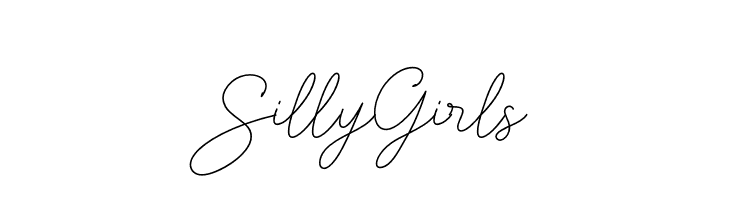
A bold serif font with strong, angular serifs and a modern yet classic style.
A bold, italic, and futuristic font with high contrast and geometric influences.
A bold, italic font with a futuristic and dynamic style.
A bold, textured, hand-drawn font with an energetic and playful style.
A dynamic, handwritten font with fluid strokes and an informal style.
A futuristic, geometric font with a digital aesthetic.
A modern, geometric font with a sleek, futuristic design.
A playful, handwritten font with a whimsical and casual style.
设计师偏爱 MATERIAL SCIENCE, MollySerifCPERSONAL-Black, Force Majeure Super-Italic, Ninja Garden Laser Italic and Pirate Regular,因为其造型干净、适用范围广—— 从品牌识别到落地页、海报都能胜任。